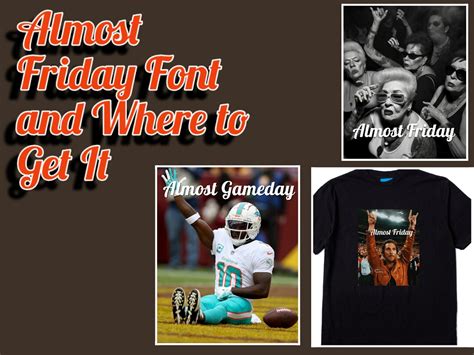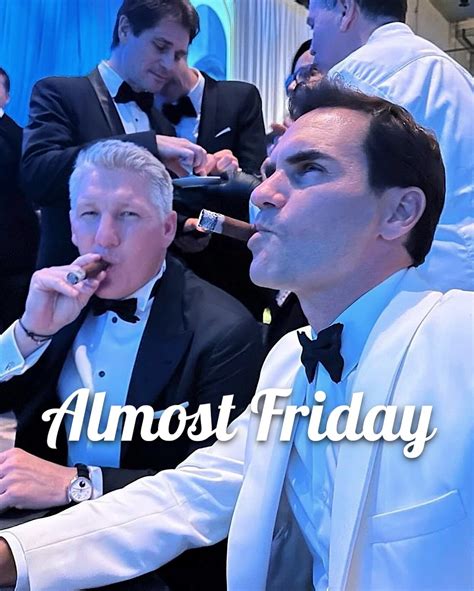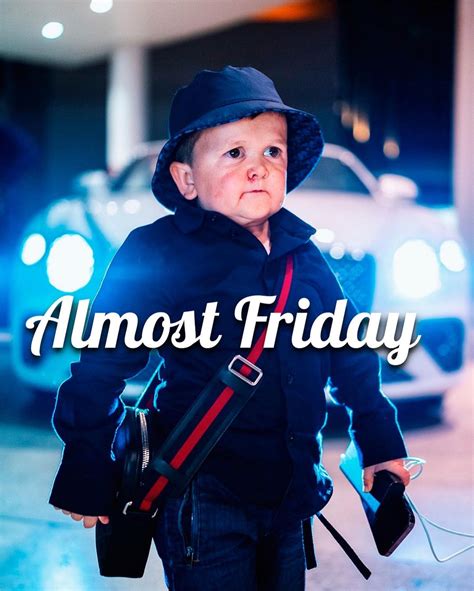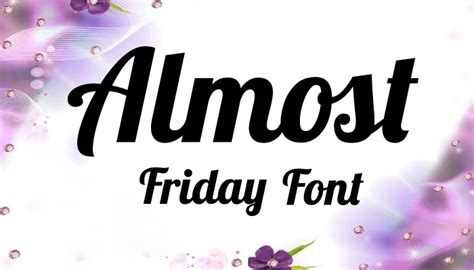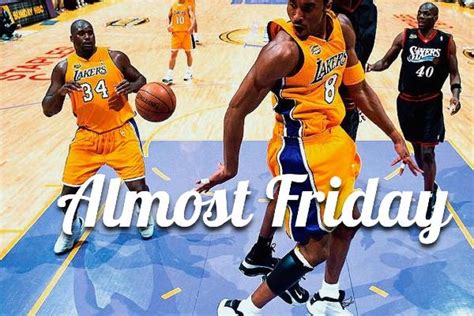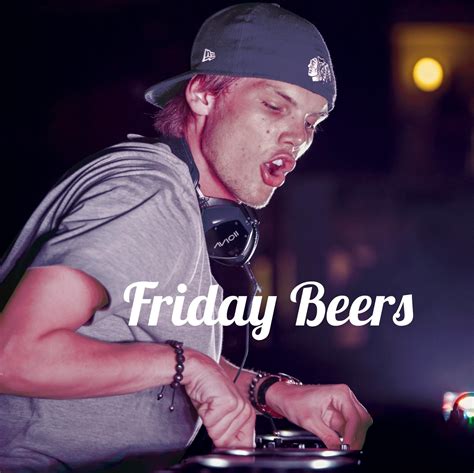
ALMOST FRIDAY FONT
The Almost Friday Font is a unique and eye-catching font that has gained popularity for its distinctive style and versatility. This font is a creative blend of two distinct concepts, which we will explore in this introduction. With its ability to capture attention and convey a sense of playfulness, it has become a favorite among designers and content creators alike.
The font is named after the idea of "almost Friday," symbolizing the anticipation and excitement that builds up towards the end of the workweek. It embodies the feeling of being close to the weekend, a time often associated with relaxation and fun. This concept is reflected in the font's design, which incorporates elements that evoke a sense of joy and leisure.
One of the key benefits of the Almost Friday Font is its versatility in design applications. It can be used in various contexts, from social media posts and blog headings to promotional materials and branding. Its unique style adds a touch of personality and creativity to any project, making it stand out from traditional fonts.
In the following sections, we will delve deeper into the font's design elements, its historical background, and the various ways it can be utilized to enhance visual communication. By understanding its characteristics and potential, you can unlock the full potential of this captivating font in your creative endeavors.